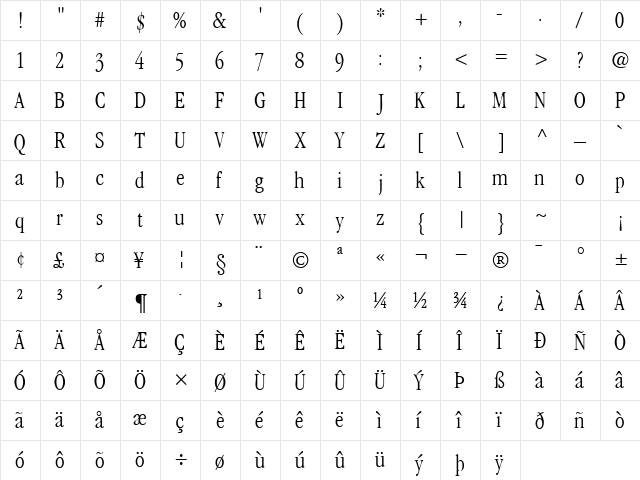
GaramondLightCondSSK Regular
Design Context for GaramondLightCondSSK Typeface
GaramondLightCondSSK offers clean, dependable letterforms without strong stylistic allegiance, making it a practical choice for designers who need flexibility. The delicate stroke weight brings airiness and refinement to layouts. Its narrow stance lets it pack a punch even in space-constrained designs.